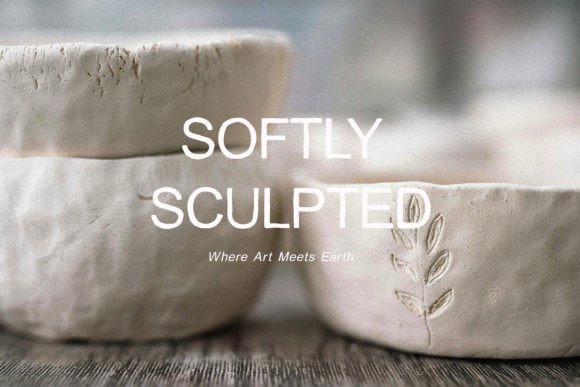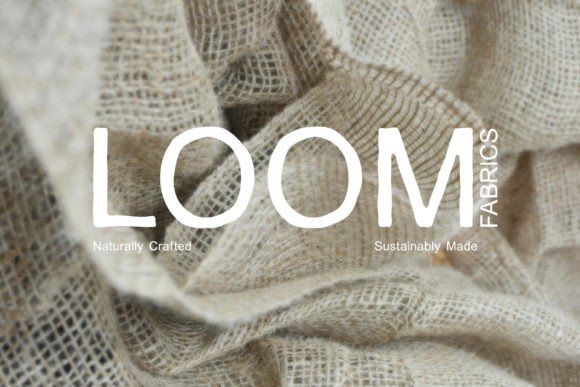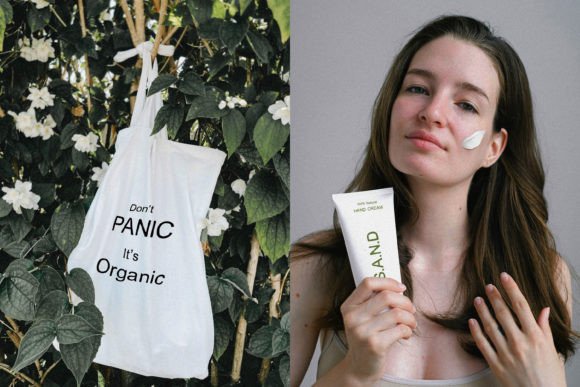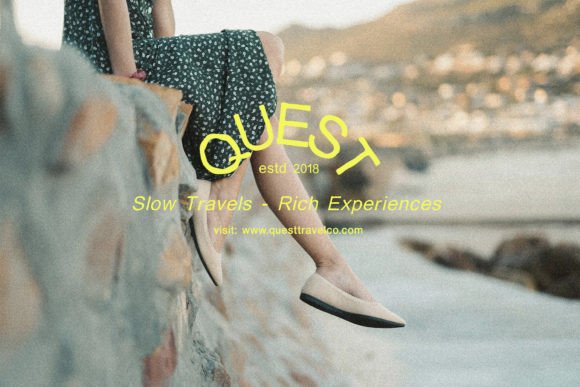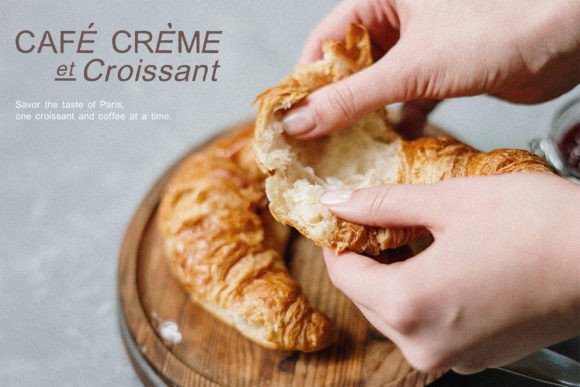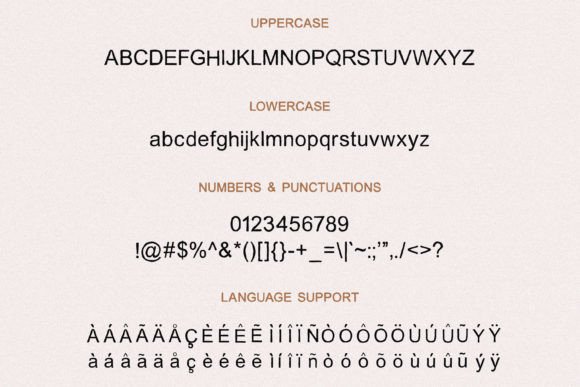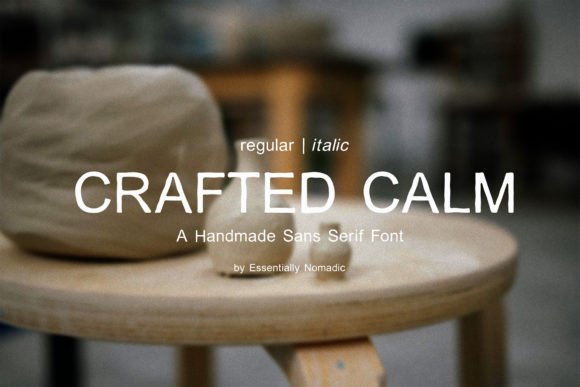
Introducing Crafted Calm: A Unique Sans Serif Typeface for the Modern Creator
In the world of typography, fonts play a crucial role in conveying the tone and personality of a brand, product, or creative project. For designers and crafters looking for a typeface that embodies a sense of hand-crafted charm, approachability, and modern minimalism, Crafted Calm is an exceptional choice. This sans serif font stands out with its distinctive hand-drawn quality, making it perfect for projects that aim to evoke a personal, inviting feel.
The Distinctive Hand-Drawn Quality of Crafted Calm
Crafted Calm’s most striking feature is its irregular, organic edges. Unlike traditional sans serif fonts that boast clean, uniform lines, Crafted Calm’s characters are defined by their charming, artisanal look. This unique quality gives the font a bumpy, uneven texture that immediately captures attention and sets it apart from more conventional typefaces. The irregularities are not just aesthetic; they contribute to the font’s overall personality, making it more approachable and engaging.
A Playful and Approachable Character
The playful and approachable character of Crafted Calm is largely due to its uneven strokes and bumpy contours. These features add a casual, friendly vibe to the font, making it an excellent choice for projects that require a less polished, more personal aesthetic. Whether you’re working on branding for artisanal products, illustrations, or casual digital content, Crafted Calm’s unique character helps create a connection with your audience. It suggests a human touch, implying that the product or message comes from a place of care and personal attention.
Balancing Modern Design with Playful Warmth
While Crafted Calm boasts a distinctly hand-crafted look, it also balances contemporary design with a touch of playful warmth. This balance makes it versatile enough for a wide range of applications, from modern branding and advertising to digital content and illustrations. The font’s sans serif base ensures clarity and readability, even at smaller sizes, while its hand-drawn nuances add a layer of personality and warmth. This blend of modernity and playfulness allows designers to create visually appealing, engaging content that resonates with audiences.
Creative Versatility of Crafted Calm
Crafted Calm’s creative versatility is one of its most significant advantages. This font is not limited to a specific style or medium; it can be effectively used across various platforms and project types. Here are some of the areas where Crafted Calm shines:
- Branding Artisanal Products: For products that emphasize their hand-made or small-batch nature, Crafted Calm offers a typographic solution that aligns perfectly with the brand’s ethos.
- Illustrations: The font’s playful and organic feel makes it an excellent companion to illustrations, adding a narrative layer that enhances the visual storytelling.
- Casual Digital Content: In the digital realm, Crafted Calm can add a personal touch to blogs, social media posts, and website content, making the digital experience more welcoming and engaging.
Crafted Calm is more than just a font; it’s a design element that can elevate the character and charm of any project. Its unique blend of hand-drawn authenticity, playful approachability, and modern minimalism makes it a valuable tool for designers and crafters. Whether you’re aiming to create a brand identity that feels personal and artisanal or simply looking for a typeface that adds a touch of warmth and personality to your digital content, Crafted Calm is an exceptional choice. Explore the creative possibilities with Crafted Calm and discover how this distinctive sans serif typeface can bring a new level of engagement and aesthetic appeal to your projects.